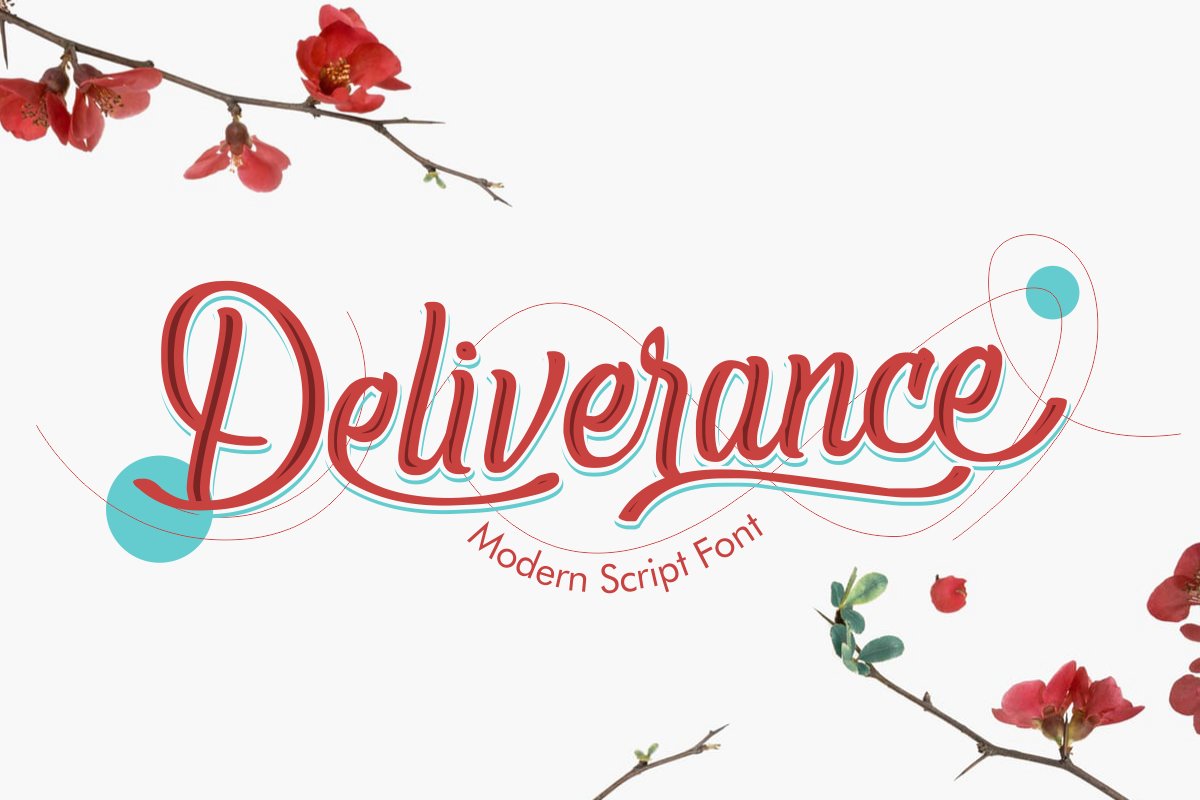
Deliverance | Modern Script Font
Deliverance Script
Introducing Deliverance - A new freshly painted, modern script calligraphy font!
Sweet, casual and curvy with a touch of funk, Deliverance
is meant to emulate natural brush lettering - perfect for head-turning statements and eye-catching branding. Try alternating between having the ligatures active
and not active for an even more natural look.
Deliverance will work wonderfully for beauty
branding, posters, music brands, magazines, cosmetics, cookbooks,
culinary art, book covers, sporting brands, bold headliners, t-shirts,
merchandise and websites.